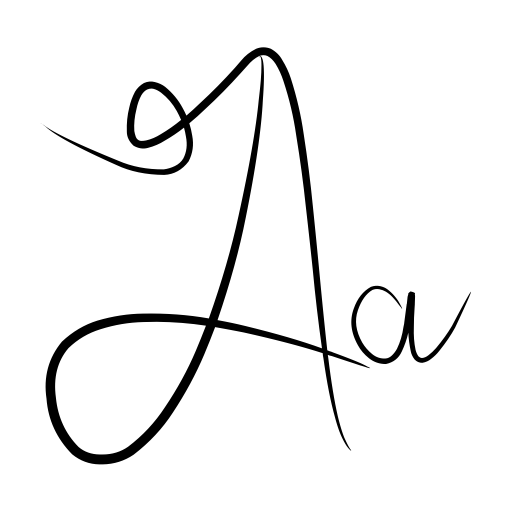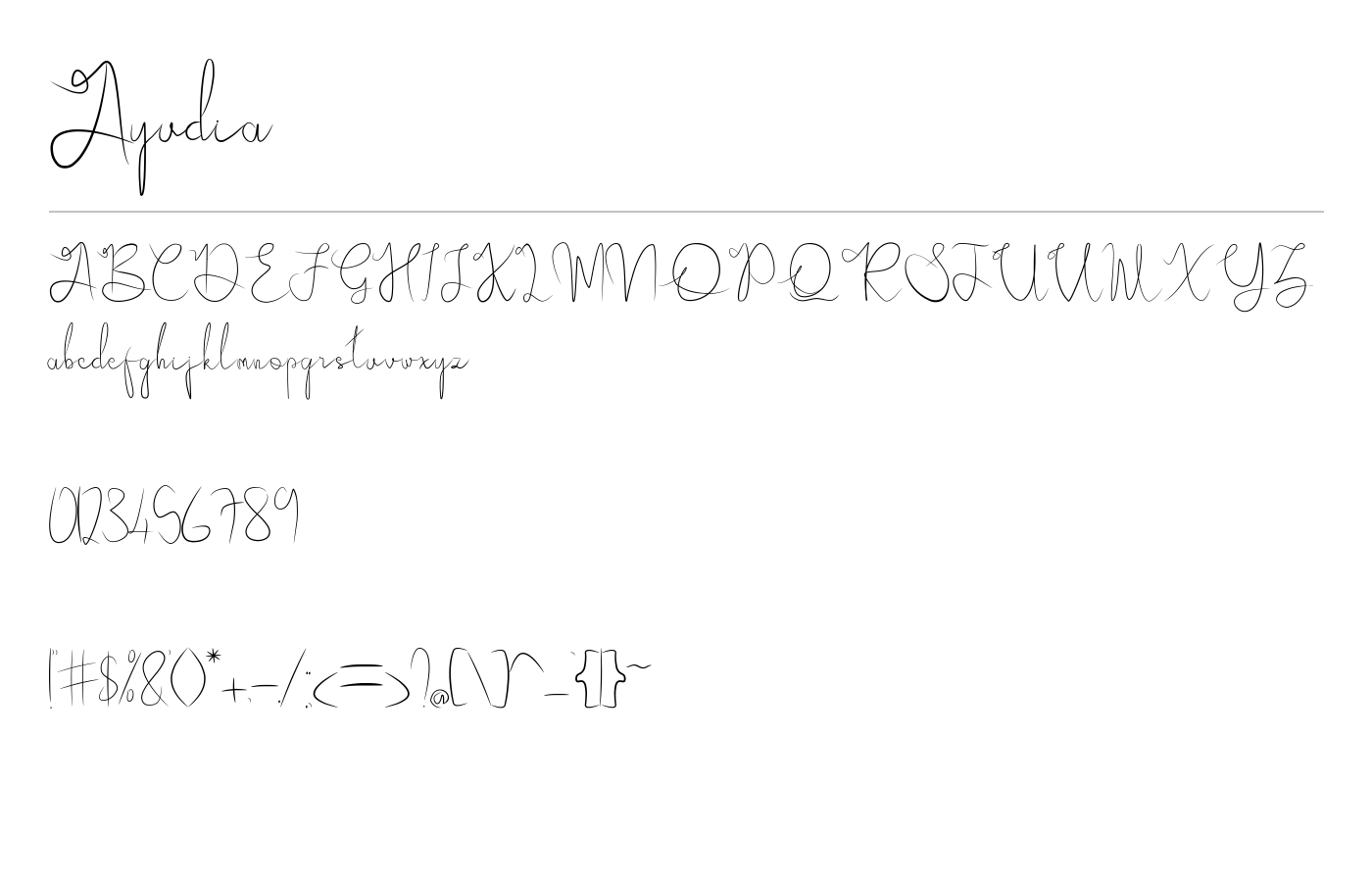
Ayudia is a delicate, lightweight script font characterized by its elegant, flowing lines and intricate swirls that give it a whimsical yet refined personality. Its fine, narrow strokes and tall x-height create an airy and graceful feel, making it ideal for fashion branding, invitations, and feminine design projects where a touch of sophistication and creativity is desired.
Ayudia Font
About Ayudia Font
| Font family | Ayudia Font |
| Designer | Muksal Creative. 2019 |